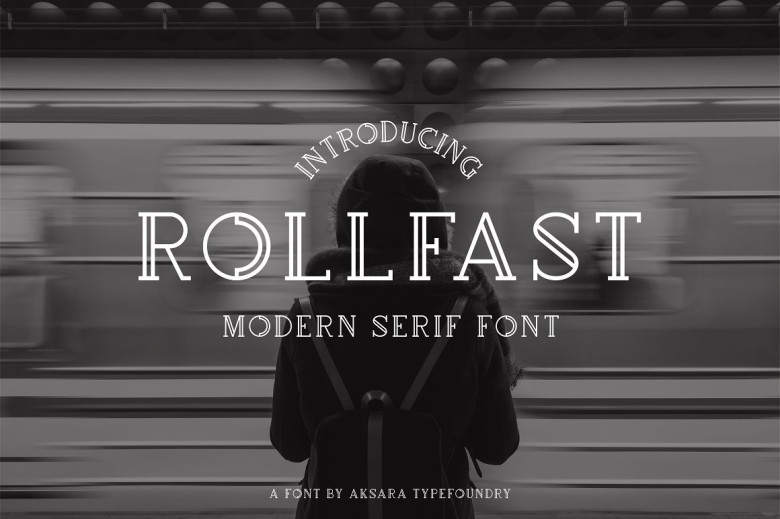
Rollfast Typeface
Introducing Rollfast! It is designed by Aksara Typefoundry, this is a premium font, are sold on creativemarket, but it was great, it is free today for download. Rollfast is modern serif font, which is combining the style of classic typography with an modern style. Perfect for your word art typography, poster, labels, t shirt or modern logo.